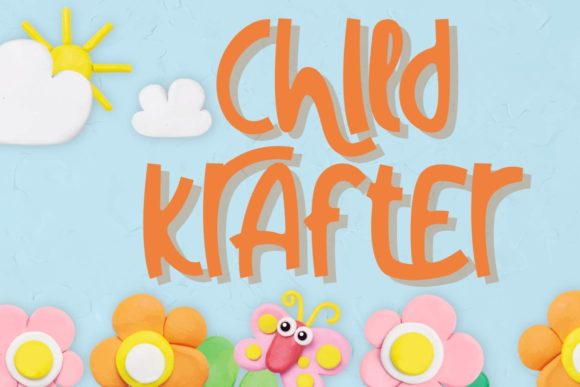
In the culinary realm, where artistry meets practicality, where flavors dance and aromas ignite the senses, there lies a font that captures the essence of culinary delight: Child Krafter Font. Let your culinary creations take center stage, adorned with this enchanting display font, crafted with a touch of sweetness, a hint of playfulness, and a dash of laid-back charm.
Child Krafter Font, a member of the esteemed display font family, isn't just a font; it's a culinary storyteller. Its playful curves and relaxed strokes embody the joy of cooking, transforming your kitchen labels into miniature masterpieces. Each letter, a culinary note, dances across the page, inviting taste buds on a gastronomic adventure.
This font is not merely a collection of glyphs; it's a gateway to a world of culinary artistry. With PUA encoding, you'll have the power to effortlessly access a treasure trove of glyphs and swashes, allowing you to add an extra layer of whimsy and delight to your kitchen creations.
Transform your kitchen labels into eye-catching works of art. Let Child Krafter Font be your culinary muse, inspiring you to create labels that are as visually stunning as they are informative. Each jar, bottle, and container will become a miniature canvas, showcasing your culinary creations with a touch of playful elegance.
Unleash your culinary creativity and let Child Krafter Font guide you on a journey of taste and visual delight. Your kitchen will become a symphony of flavors and colors, a testament to your passion for the culinary arts.